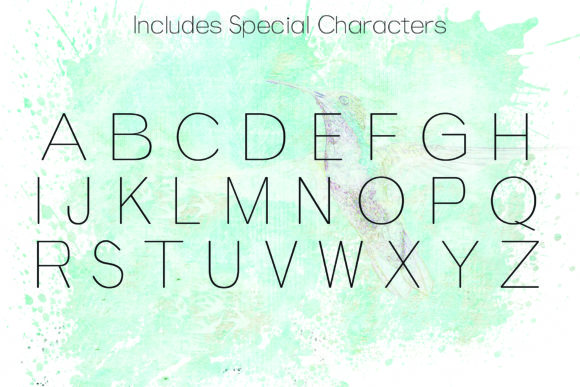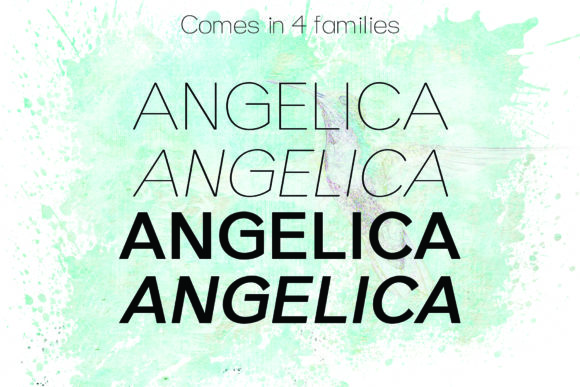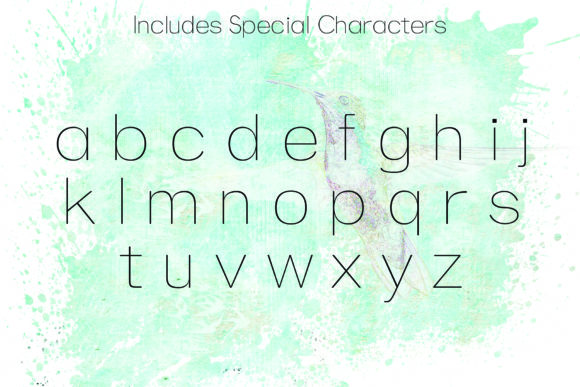
Introducing Angelica Font: Elevate Your Design Projects with a Heavenly and Elegant Sans Serif Font
Are you a designer or crafter looking for a font that exudes a sense of sophistication and modernity? Look no further than the Angelica Font. This stunning sans serif font is designed to bring a touch of elegance and refinement to any design project, making it perfect for those who want to create something truly special.
What is Angelica Font?
Angelica is a heavenly and elegant sans serif font with an undeniably contemporary feel. Its clean lines, precise curves, and balanced proportions make it a versatile font that can be used in a wide range of design applications, from branding and advertising to packaging and digital media.
Key Features of Angelica Font
- Contemporary feel: Angelica Font has a distinctly modern aesthetic that will make your designs stand out from the crowd.
- Elegant and refined: The font’s sleek lines and curves give it a sophisticated and luxurious feel that’s perfect for high-end designs.
- Versatile: Angelica Font can be used in a variety of design applications, from digital media to print materials.
- Easy to read: The font’s clear and balanced design makes it easy to read, even at small sizes.
How to Use Angelica Font in Your Design Projects
Angelica Font is perfect for designers and crafters who want to add a touch of elegance and sophistication to their work. Here are a few ideas for using Angelica Font in your design projects:
- Branding and logos: Use Angelica Font to create a sophisticated and modern brand identity that will help your business stand out.
- Advertising and marketing materials: The font’s elegant design makes it perfect for use in advertising and marketing materials, such as brochures, flyers, and posters.
- Packaging design: Angelica Font is a great choice for packaging design, particularly for luxury brands or products.
- Digital media: The font’s clean and modern design makes it perfect for use in digital media, such as website headers, social media graphics, and email marketing campaigns.
Tips for Getting the Most Out of Angelica Font
To get the most out of Angelica Font, here are a few tips to keep in mind:
- Use it sparingly: While Angelica Font is elegant and refined, it can be overwhelming if used too much. Use it sparingly to create a sense of sophistication and luxury.
- Experiment with different sizes and colors: Angelica Font looks great in a variety of sizes and colors. Experiment with different combinations to find the one that works best for your design.
- Pair it with other fonts: Angelica Font pairs well with other fonts, particularly those with a more playful or rustic feel. Experiment with different pairings to find the one that works best for your design.
In conclusion, Angelica Font is a stunning sans serif font that is perfect for designers and crafters who want to add a touch of elegance and sophistication to their work. Its contemporary feel, elegant design, and versatility make it a great choice for a wide range of design applications. Whether you’re creating a brand identity, advertising materials, or packaging design, Angelica Font is sure to elevate your design project and help you achieve your goals.